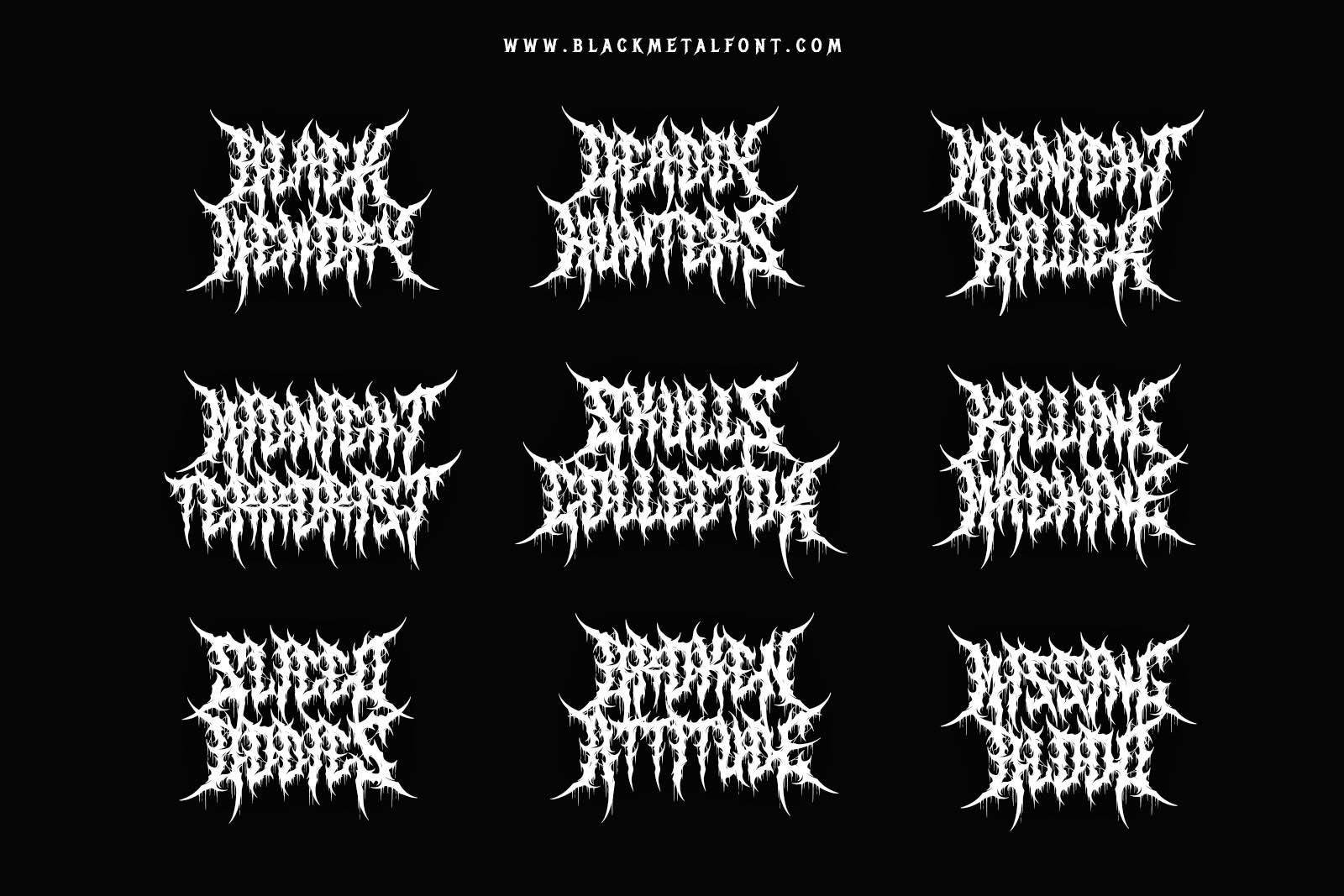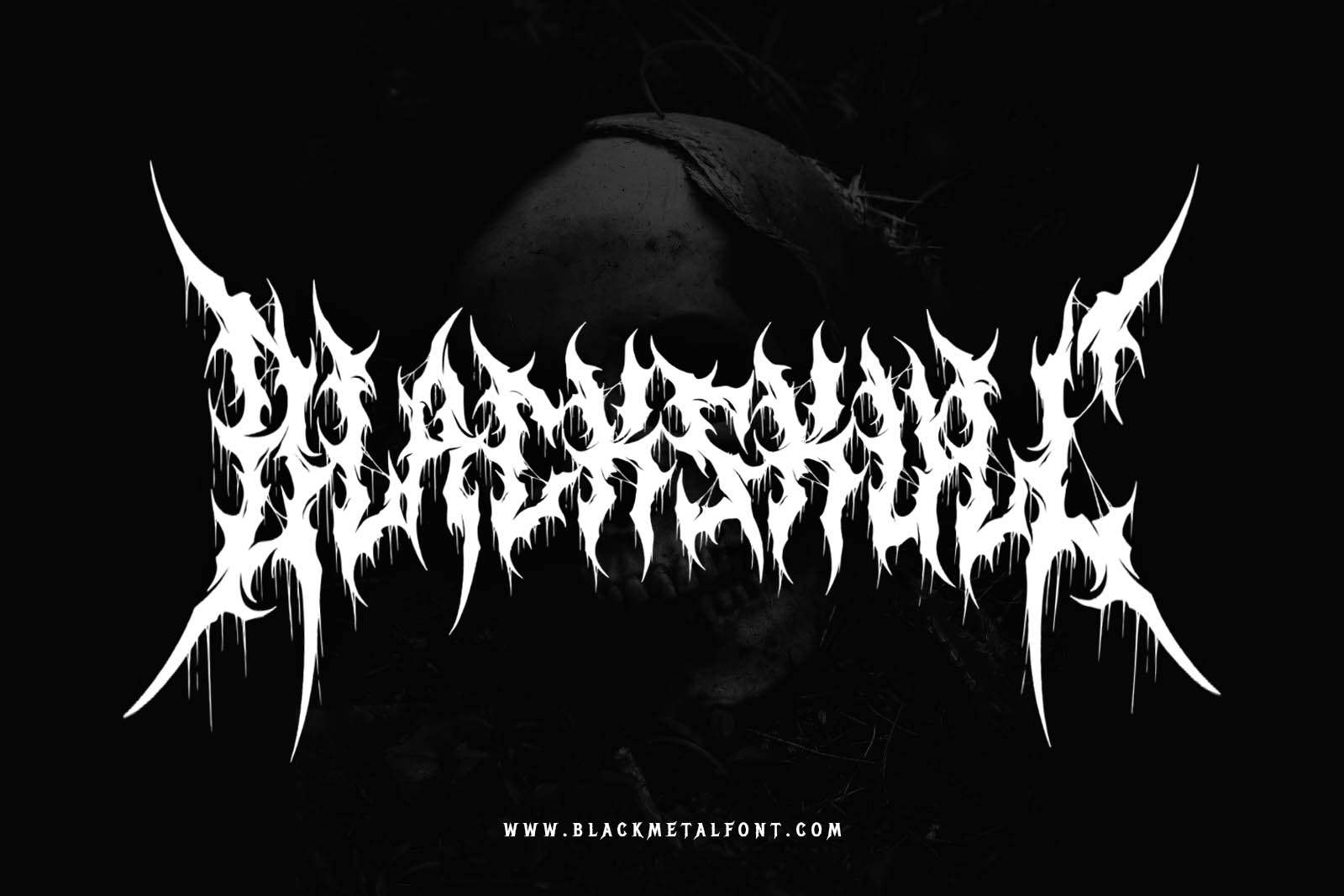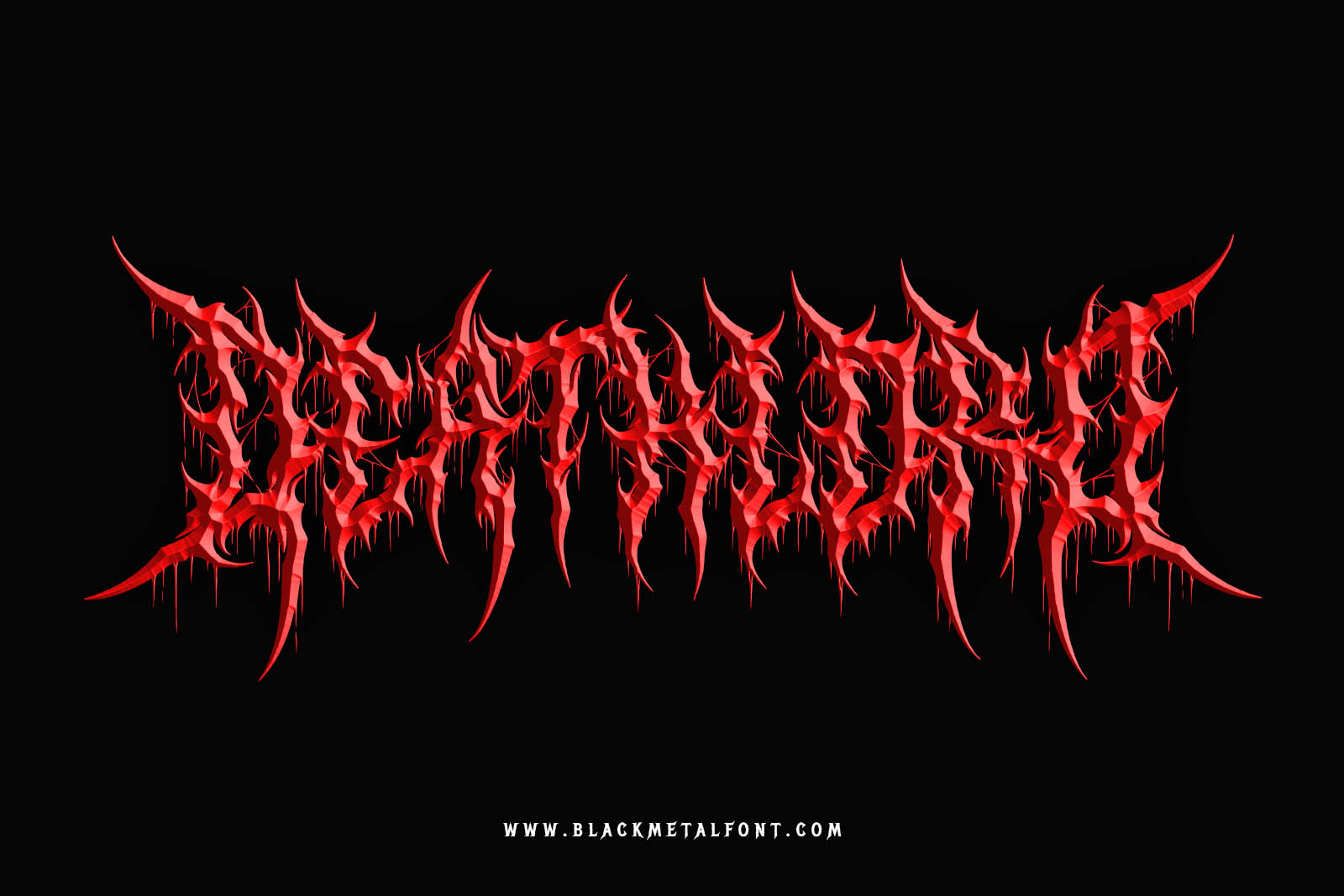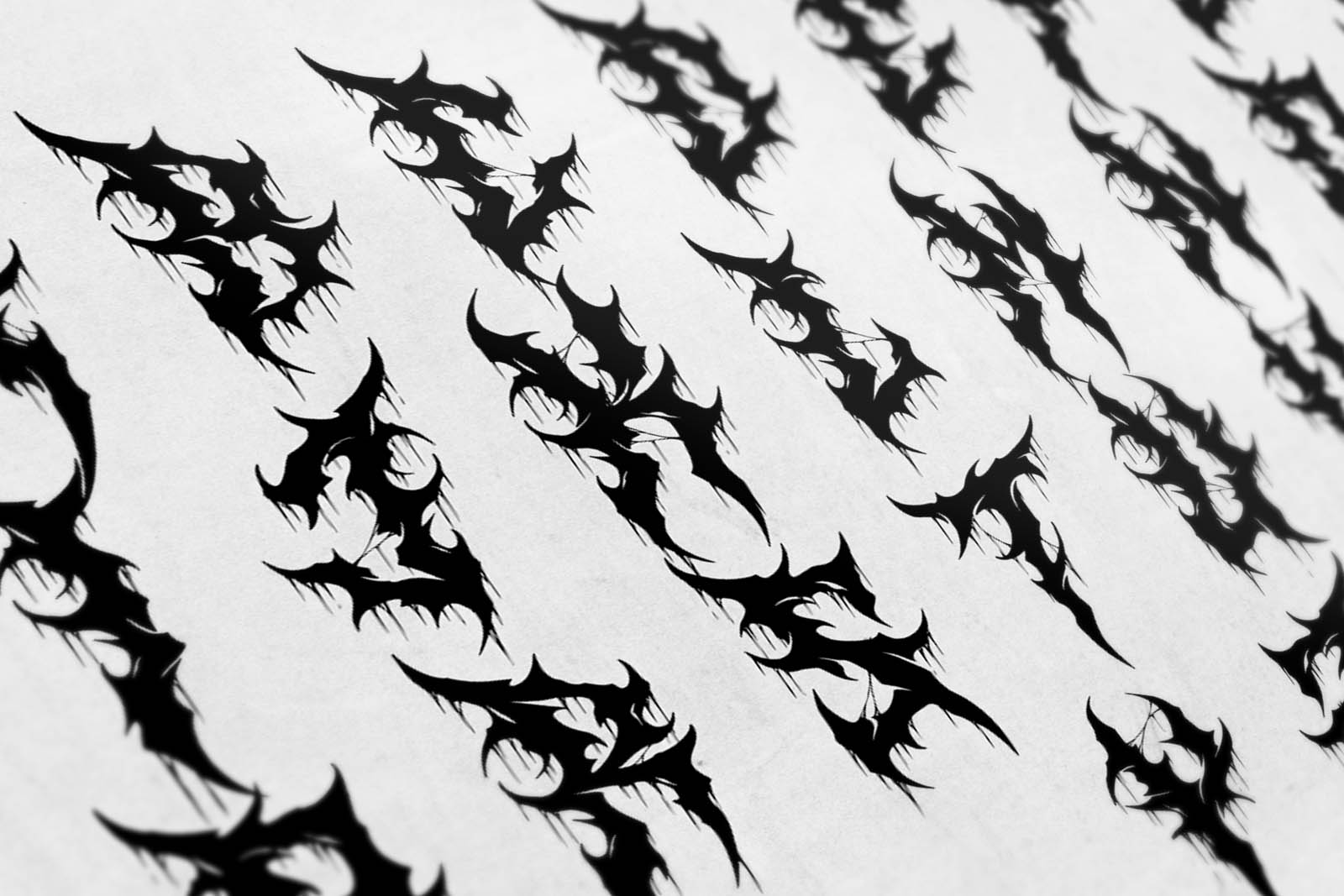
Gravestone Deathmetal
Gravestone is awesome death metal font. Comes with Uppercase and lowercase characters. This font is great for any gore/metal/brutal design purposes. Gravestone is awesome for your logo, your band, for merchandise, for clothing, and movie title/poster